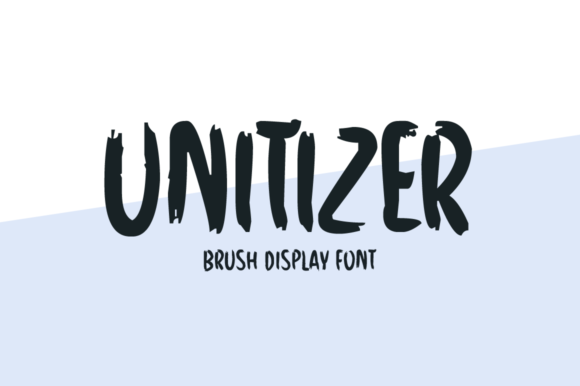
Unitizer Font
Journey into the world of Unitizer, a remarkable brush display font that will ignite your creativity and transform your designs into captivating masterpieces.
Unitizer's bold and expressive strokes dance across the page, leaving a trail of elegance and intrigue. Its dynamic character adds a touch of vibrancy and personality to any project, whether it's a logo, poster, or social media graphic.
With Unitizer, you hold the power to elevate your designs to new heights. Its carefully crafted glyphs, infused with artistic flair, will make your words leap off the screen and capture the attention of your audience.
Unleash your inner artist and explore the endless possibilities that Unitizer presents. Its versatility knows no bounds, allowing you to create designs that resonate with your unique style and vision.
Experience the magic of Unitizer today and let your creativity soar. Its captivating charm will leave an unforgettable impression on your audience, leaving them spellbound and eager for more.
Welcome to the world of Unitizer, where boundless creativity meets exceptional design. Discover the power of this remarkable font and unlock the potential of your creative endeavors.